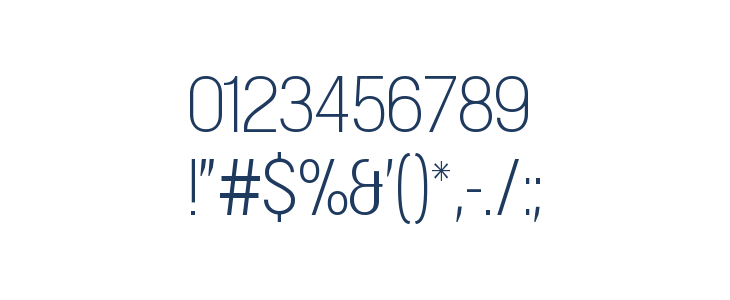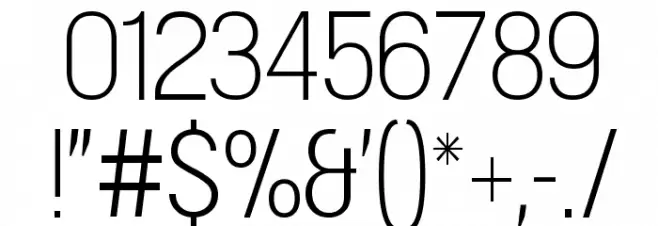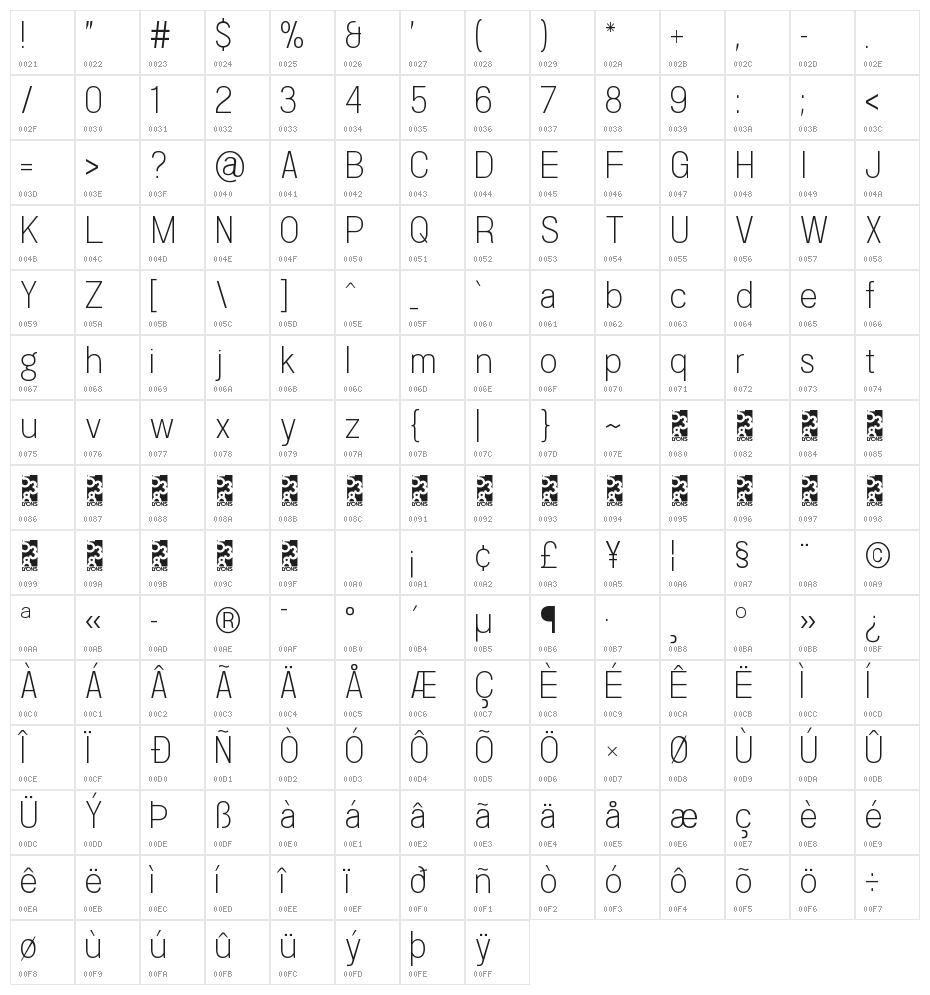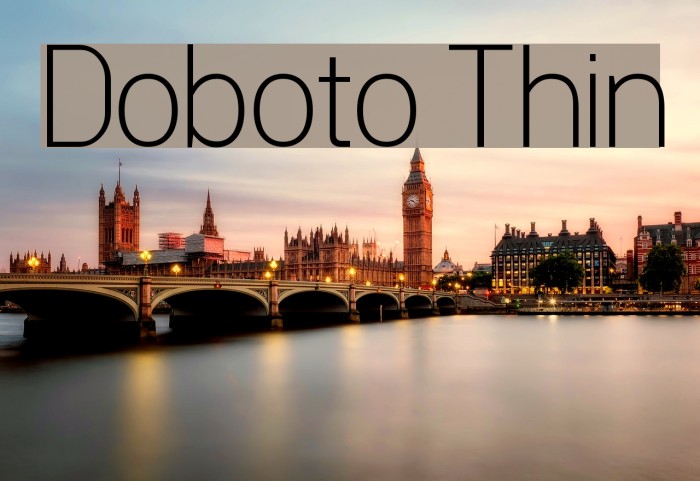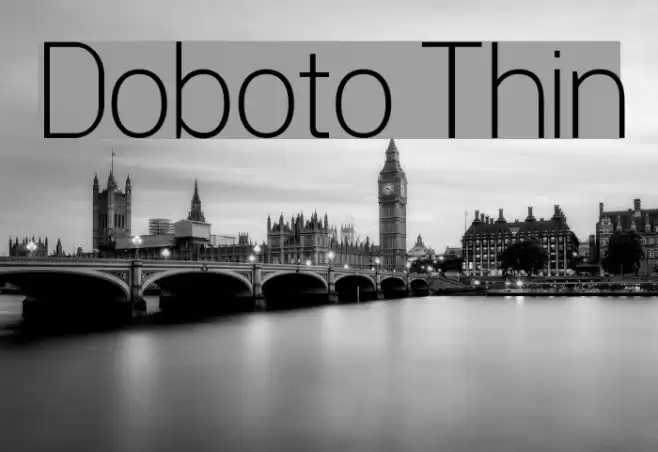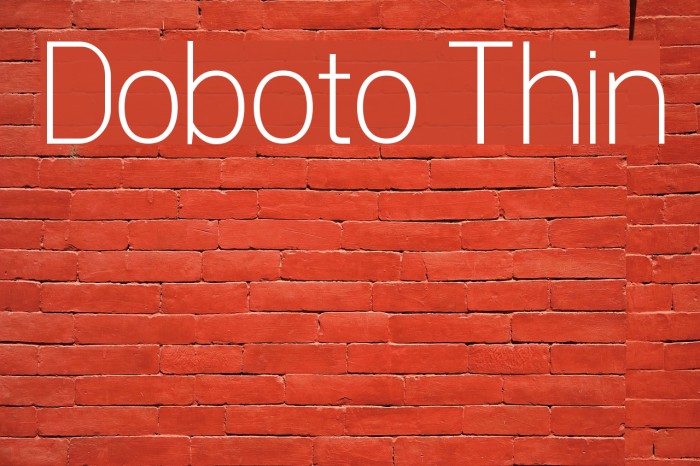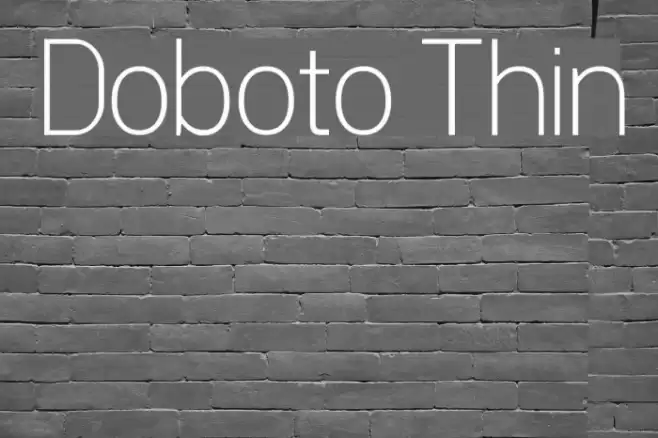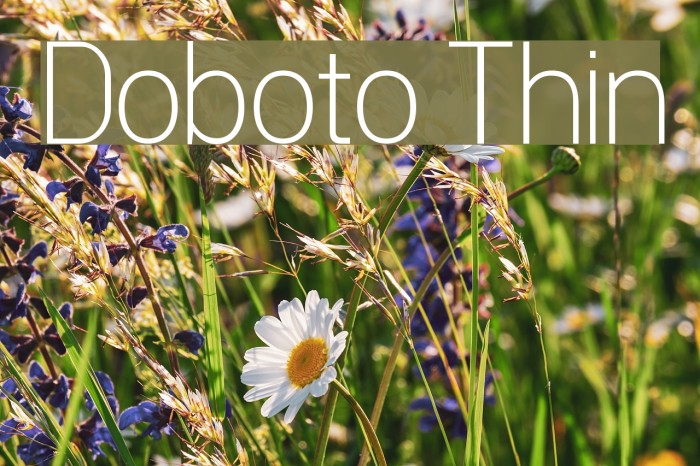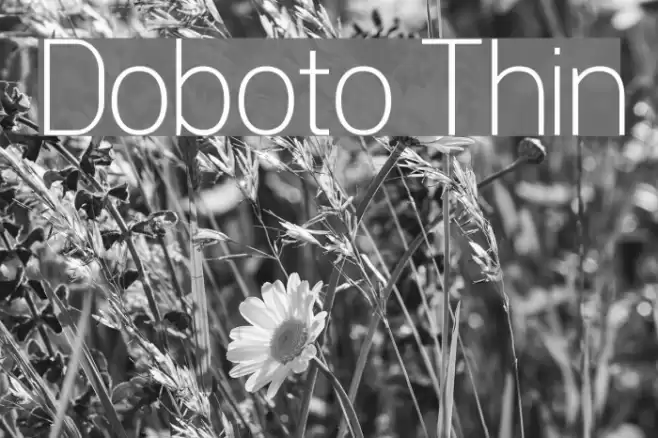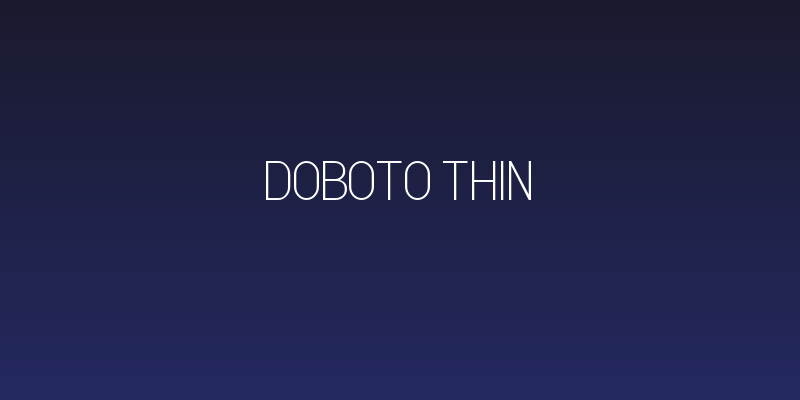
Doboto Thin Font
Doboto Thin Description
This font features a clean, modern aesthetic with a thin and elegant line weight. The characters are sans-serif, offering a minimalist and contemporary look. The uppercase and lowercase letters maintain a consistent height and width, providing a uniform appearance. The numerals and special characters are designed with the same thin strokes, ensuring a cohesive style throughout. The overall design is sleek and professional, making it suitable for a variety of applications where clarity and simplicity are desired.
| Proposed Projects | Ideal for branding, editorial design, web design, and corporate materials where a modern and clean look is essential. |